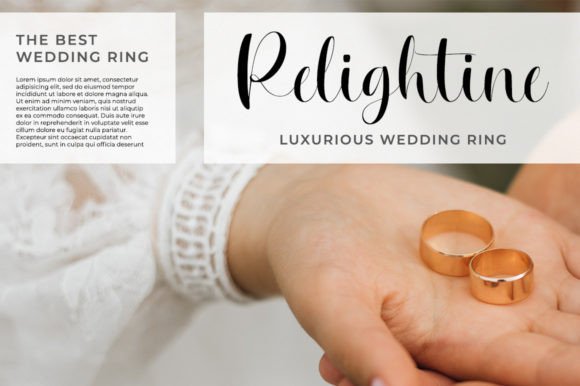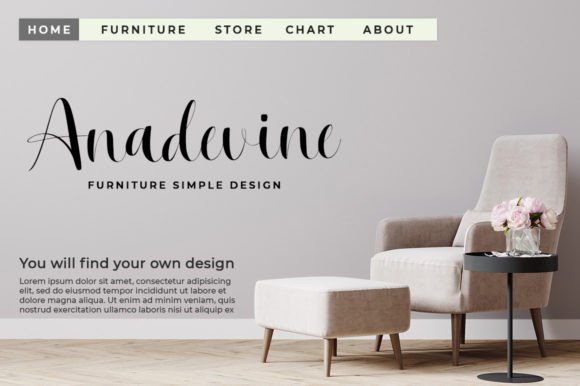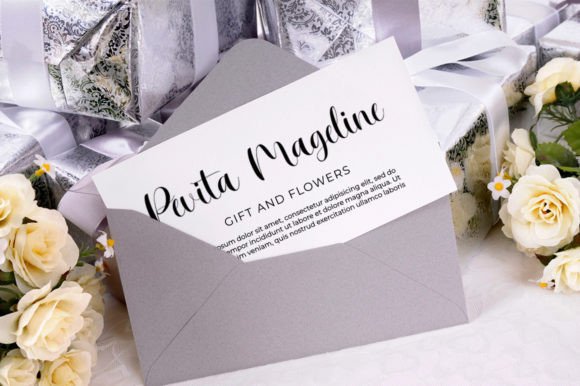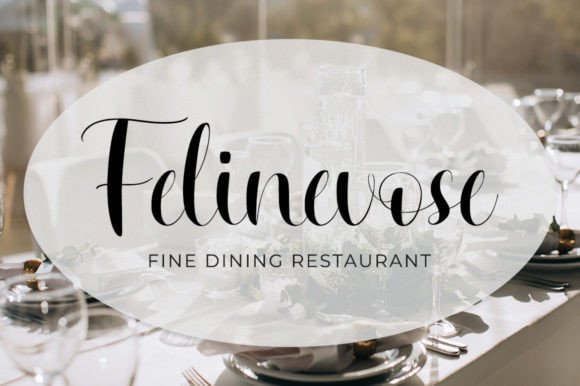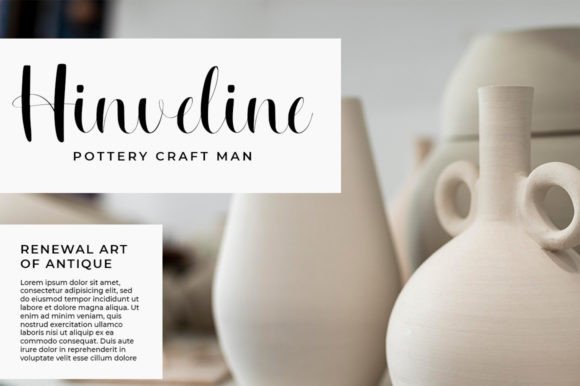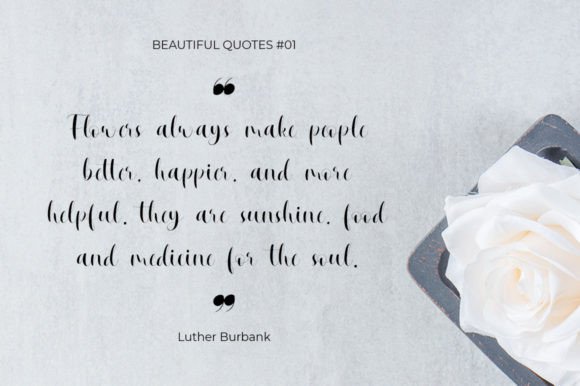
Introducing Givenelia Script: Elevate Your Designs with Elegance and Sophistication
In the world of design, typography plays a crucial role in conveying the message and aesthetic of a project. For those seeking a font that exudes elegance, class, and modernity, Givenelia Script is an exceptional choice. This beautiful script font is designed to add a personal touch to your latest art project, making it perfect for designers and crafters looking to elevate their creations.
What is Givenelia Script?
Givenelia Script is a stylish font style that offers a unique blend of sophistication and charm. Its elegant and classy design makes it an ideal choice for a wide range of projects, from logos and branding to invitations, stationery, and wedding designs. The font’s modern look ensures that your creations stand out in a crowded digital landscape.
Key Features of Givenelia Script
- Elegant and Classy Design: Givenelia Script boasts a sophisticated design that adds a touch of luxury to any project.
- Modern Look: The font’s modern aesthetic ensures that your creations look fresh and contemporary.
- Handwriting Taste: Givenelia Script offers a beautiful, handwriting-like quality that adds a personal touch to your designs.
- Versatile: The font is perfect for a wide range of projects, including logos & branding, invitations, stationery, wedding designs, social media posts, advertisements, product packaging, product designs, labels, photography, watermarks, and special events.
Givenelia Script is an excellent choice for designers and crafters looking to add a touch of elegance and sophistication to their creations. Whether you’re working on a logo, invitation, or social media post, this font is sure to impress. Its versatility and modern look make it an ideal choice for a wide range of projects.
Use Cases for Givenelia Script
- Logos & Branding: Create a lasting impression with a logo that exudes elegance and sophistication.
- Invitations and Stationery: Add a touch of luxury to your invitations and stationery with Givenelia Script.
- Wedding Designs: Make your wedding designs truly special with this beautiful script font.
- Social Media Posts: Elevate your social media posts with a font that stands out from the crowd.
- Advertisements and Product Packaging: Create eye-catching advertisements and product packaging with Givenelia Script.
Why Choose Givenelia Script?
Givenelia Script offers a unique combination of elegance, class, and modernity, making it an excellent choice for designers and crafters. Its versatility and handwriting-like quality ensure that your creations stand out in a crowded digital landscape.
| Font Name | Givenelia Font |
| Author | fanastudio |
In conclusion, Givenelia Script is a stylish font style that offers a unique blend of elegance, class, and modernity. Its versatility and handwriting-like quality make it an ideal choice for a wide range of projects. Whether you’re a designer or crafter, Givenelia Script is sure to elevate your creations and add a touch of sophistication to your designs.